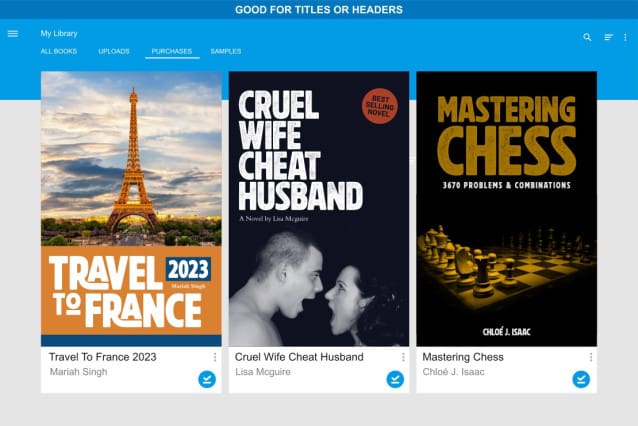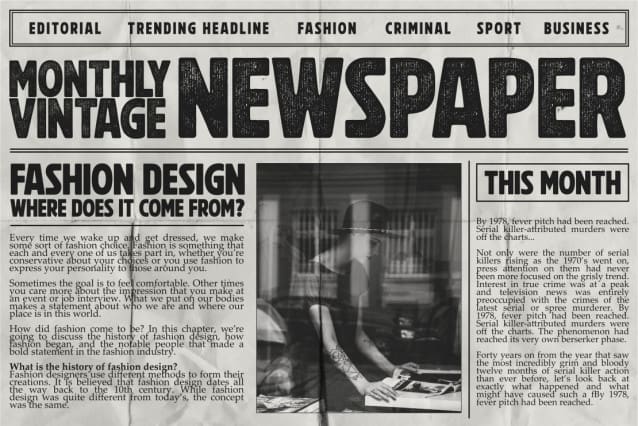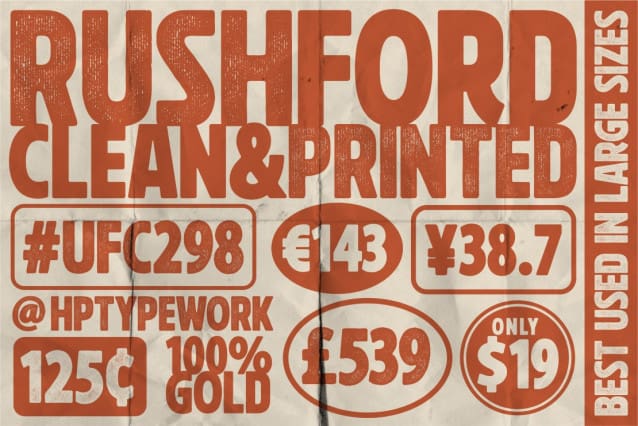
Rushford Clean Font
Rushford Printed Font is a sans serif typeface which presents sketchy edges with irregular scheme imperfections to simulate the transferred ink. It may be a little gritty & rough around the edges, but it can also be open, warm and welcoming. Rushford Printed is perfect for t-shirts, sports graphics, beer cans, trading cards, carnival posters and record albums.